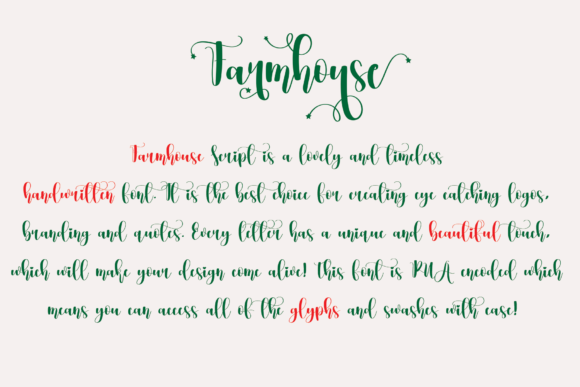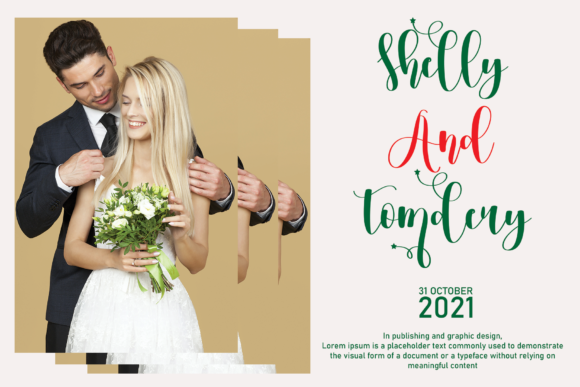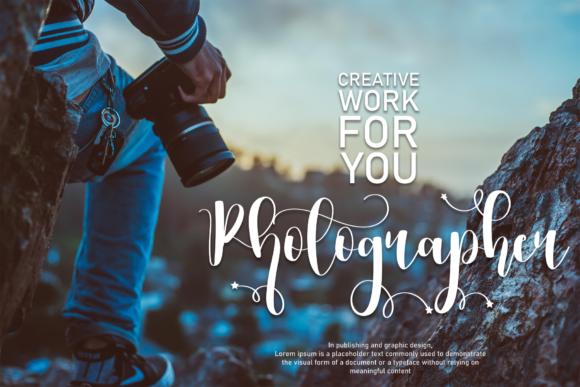
About Farmhouse Font
Farmhouse is a romantic and sweet calligraphy typeface with characters that dance along the baseline. It will add a luxury spark to any design project that you wish to create! This font is PUA encoded which means you can access all of the amazing glyphs and ligatures with ease!